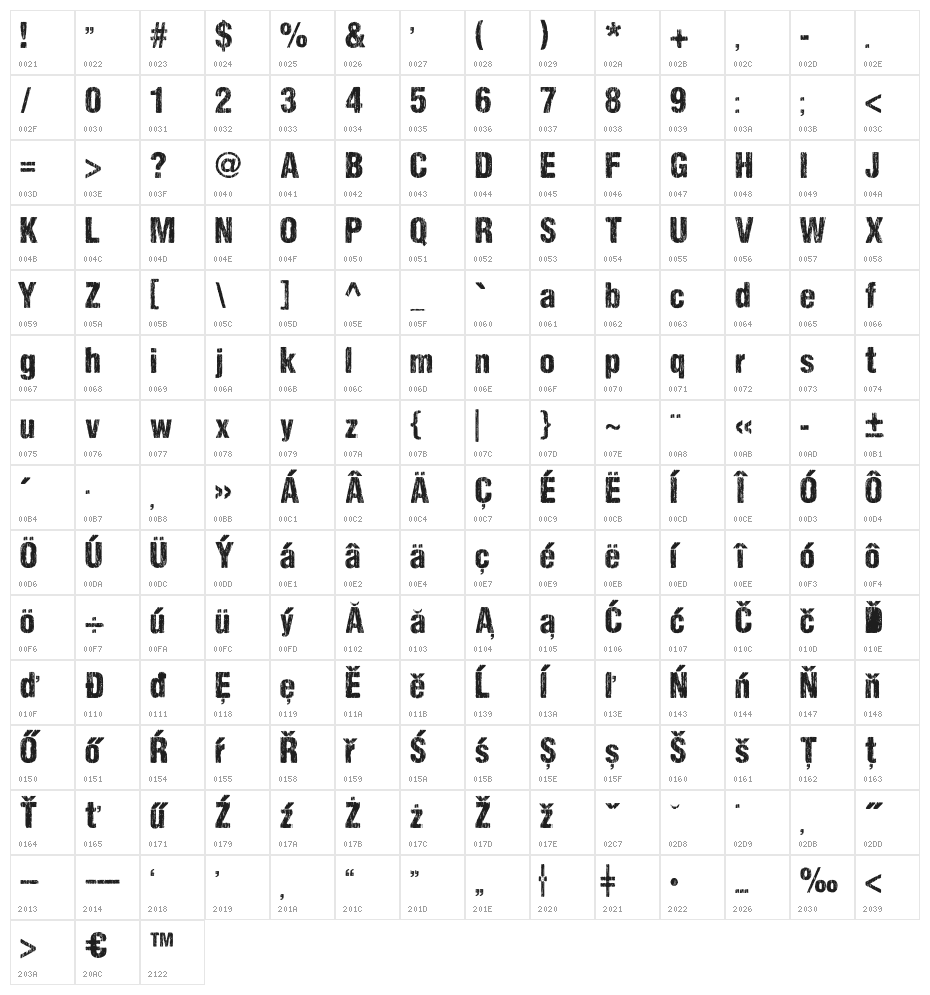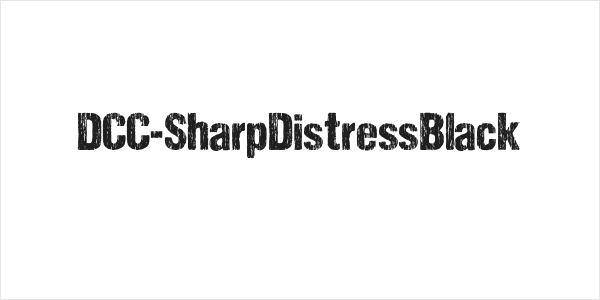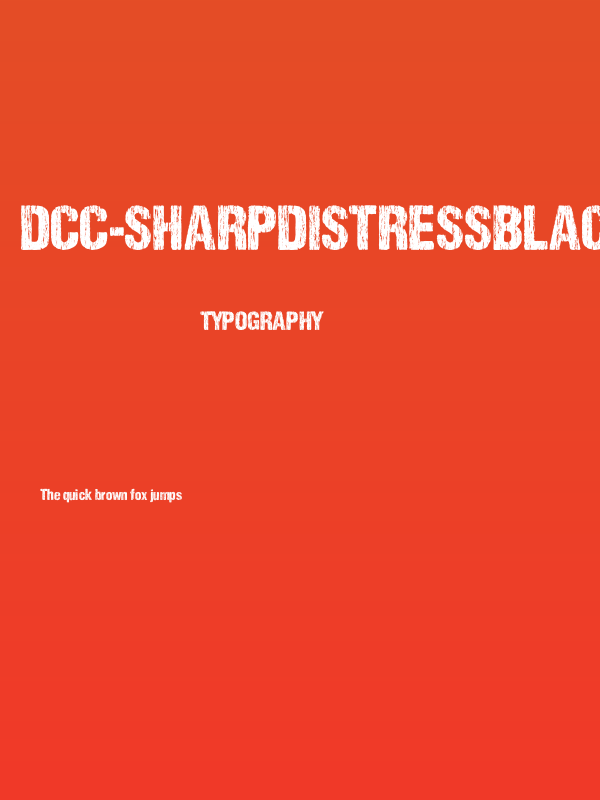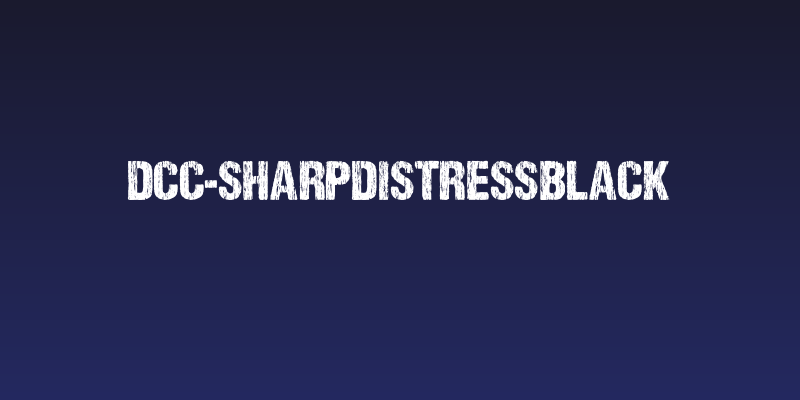
DCC-SharpDistressBlack Font
✎ Distorted Eroded
| 分类 | Distorted Eroded |
| 整体风格 | Grunge, Distressed |
| 推荐项目 | Ideal for posters, album covers, branding for edgy products, or any design needing a gritty, urban feel. |